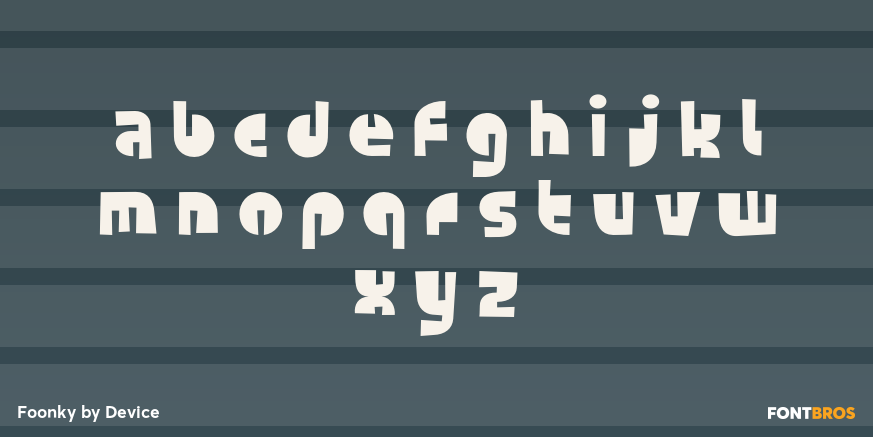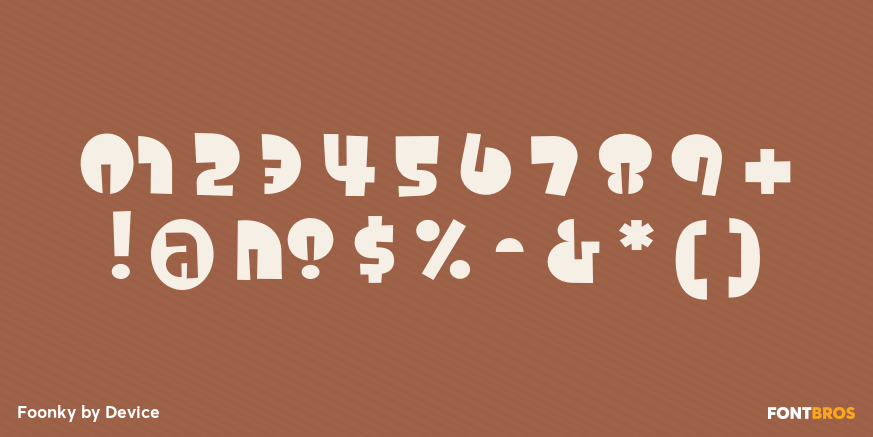
Foonky
Font Family by Device
Foonky is a playful display family with a bold, offbeat personality. Its retro-leaning look pulls from groovy 1960s and 1970s styling while also nodding to wacky new wave energy, making it a strong choice when you want type that feels loud, fun, and unapologetically decorative.
Sold as a 2-style family by Device, it includes Foonky Starred and Foonky Heavy. That pairing gives you a couple of distinct ways to push the look, whether you want something more graphic and embellished or a heavier headline treatment with maximum visual punch.
This is the kind of face that works well for posters, bold branding, packaging, event graphics, apparel, and other display-driven projects where personality matters. If your design calls for a funky, special-effect feel with clear vintage-pop influence, this family brings plenty of attitude right away.